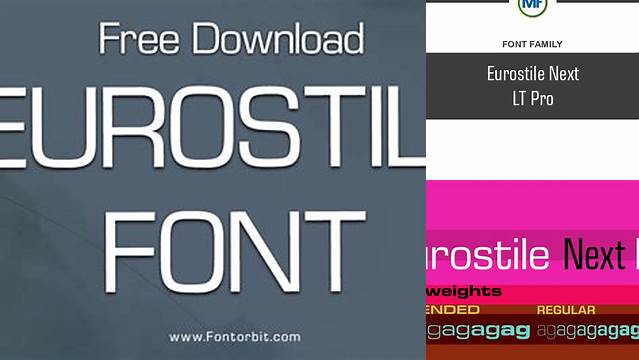
Hey guys, are you on the hunt for a super cool, versatile font that can give your designs a serious edge? Look no further, because we're diving deep into the world of Eurostile Next Paneuropean Condensed Bold Italic Font! This font family is a real gem, perfect for everything from eye-catching headlines to sleek body text. And the best part? We'll be talking about how you can get your hands on a free download!
H2: What Makes Eurostile Next Font So Special?
Okay, so what's the deal with Eurostile Next? Why is it so popular, and why should you care? Well, let's break it down. First off, it's a member of the Eurostile family, which is known for its clean, geometric look. This gives it a modern, professional vibe that's perfect for a wide range of projects. The Paneuropean aspect means it supports a bunch of different European languages, so you're covered if you're working on multilingual projects. Then there's the condensed style, which is super handy when you need to fit a lot of text into a small space – think headlines, subheadings, and even some body text in certain cases. The bold and italic versions give you even more options for emphasizing text and adding visual interest. This is a font that can handle a wide variety of design tasks, from creating striking posters to designing websites that really pop. It's the kind of font that says, "I know what I'm doing" without being overly flashy or distracting. This versatility is the cornerstone of its popularity, making it a favorite among designers and marketers alike. And, let's be honest, who doesn't love a font that looks good in both print and digital formats? Also, it's important to remember that a well-chosen font can significantly impact the way your audience perceives your message. It can convey everything from professionalism and trustworthiness to creativity and innovation. In essence, the right font can make or break your design, and Eurostile Next is often a safe bet.
Let’s get a little more technical, shall we? Eurostile Next is a sans-serif typeface, meaning it doesn't have those little "feet" or serifs at the ends of the letters. This gives it a clean, streamlined appearance. The geometric design of the letters creates a strong visual impact, ensuring that your text is easily readable, even at smaller sizes. The condensed version of the font is perfect for saving space without sacrificing readability. This is especially useful when designing for mobile devices or situations where space is at a premium. The bold and italic styles add extra options for emphasis and visual flair. The bold style is great for headings and subheadings, while the italic style can be used for emphasis or to create a sense of movement. Because it supports a wide range of languages, this font is an excellent choice for international projects. The paneuropean character set ensures that your text will look great, regardless of the language. This font is also super versatile, working well in everything from posters and advertisements to websites and presentations. It's a great choice for creating a cohesive brand identity, allowing you to communicate professionalism and style across all your design projects. And if you need a font that looks equally good in print and digital formats, Eurostile Next is the way to go. Whether you're designing a logo, a website, or a brochure, this font can help you achieve your goals.
H3: Key Features of the Eurostile Next Font
Okay, let's dive into what makes Eurostile Next tick. This font is all about clean lines and a modern aesthetic. The condensed style is perfect for fitting more text into a limited space, which is fantastic for headlines, subheadings, or any situation where you need to be concise. The bold and italic versions offer versatility, allowing you to add emphasis and visual flair to your designs. The geometric shapes and consistent letterforms make it easy to read, which is a crucial component of good design. The Paneuropean character set ensures compatibility with a wide range of languages, making it an excellent choice for international projects. This versatility makes it an excellent choice for a wide variety of design projects, from creating striking posters to designing websites that really pop. It looks great in both print and digital formats, so you can use it in all your projects, regardless of the medium. It has a professional and sophisticated look, making it a great option for brands that want to convey trust and expertise. It’s a workhorse font, ready for any design challenge.
In a nutshell, Eurostile Next is a versatile and stylish font family that can elevate your designs. Its condensed style, bold and italic variations, and support for multiple languages make it a top choice for designers and marketers. It's a great font to use when you want a modern, clean look that is both readable and eye-catching. This is a font that can adapt to any situation, and it is a must-have for any designer's font library. It is a font that can handle a wide variety of design tasks, from creating striking posters to designing websites that really pop. It's the kind of font that says, "I know what I'm doing" without being overly flashy or distracting.
H2: Understanding the Different Styles: Condensed, Bold, and Italic
Let's get into the nitty-gritty of those different Eurostile Next styles: Condensed, Bold, and Italic. Each one brings something unique to the table, allowing you to create a dynamic and engaging design. The condensed version is all about saving space. Think of it as the font's way of squeezing into a tight spot while still looking good. This is perfect for headlines, subheadings, and any situation where you need to fit a lot of text into a limited area. It's also great for mobile interfaces and other designs where screen real estate is precious. The bold style is your go-to for making text pop. It adds emphasis and visual weight, making important words and phrases stand out. Use it for headings, calls to action, or anywhere you want to draw the reader's eye. The italic style is all about elegance and adding a touch of sophistication. It creates a sense of movement and can be used to emphasize specific words or phrases. It's also a good choice for quotes and other text that needs to stand apart from the main body. The interplay of these styles is what makes Eurostile Next so versatile. You can use them individually or combine them to create a unique look. A bold, italicized heading, for example, can instantly grab the reader's attention. A condensed subheading can provide clarity and structure. Knowing how to utilize each style effectively will help you create designs that are both visually appealing and easy to understand. With a little practice, you'll be creating layouts that are both beautiful and functional.
H3: When to Use the Condensed Style
The condensed style is your best friend when space is at a premium. Whether you're designing a website, a poster, or a mobile app, it's a great choice when you need to cram a lot of text into a limited area. For headlines, it can make a bold statement without taking up too much space. Think of it as a way to make a headline stand out without making it overpower the rest of the design. In subheadings, it provides a clean, organized structure that makes your content easy to scan. It can also be used effectively in body text, especially in situations where you need to fit more words on a line. It also works great for tables and charts where space is critical. You can use it to clearly label and organize your data. If you’re designing a mobile app, the condensed style is especially helpful because you are often working with a small screen. The Eurostile Next Condensed style is a fantastic way to make the most of the space available to you. Also, it's not just about cramming text; it's also about readability. The condensed style of Eurostile Next maintains clarity, ensuring your text is easy to read, even when it's compact. This is especially important for users who may be viewing your design on a small screen or a mobile device. When used wisely, the condensed style can significantly enhance the visual appeal and functionality of your design. It's a tool that, when used correctly, allows you to get the most out of every design.
H3: The Power of Bold and Italic in Design
Let’s talk about how to use bold and italic fonts to really make your designs shine! The bold style of Eurostile Next is your secret weapon for making important text stand out. Use it for headings, subheadings, and any text that you want to draw the reader's eye. It creates visual weight and emphasis, making your message clear and impactful. Make sure not to overuse bold styles, as it can make your design look cluttered and confusing. Use it sparingly to highlight key information or create a focal point. The italic style is all about elegance and adding a touch of sophistication. It’s perfect for quotes, captions, and other text you want to set apart from the main body. It can also be used to create a sense of movement or emphasize a particular word or phrase. Again, use it strategically to avoid overwhelming your design. Pairing bold and italic styles together can create a dynamic and visually engaging effect. Using a bold italic font for a heading or subheading can capture your reader's attention and give your text extra impact. You can also use italic for subheadings to further organize your content in a visually appealing way. By using bold and italic styles effectively, you can create designs that are both visually appealing and easy to understand. It helps your readers navigate your content and grasp the key takeaways. This approach is not about fancy graphics or complicated layouts, but about strategically using these font styles to create designs that inform and engage your audience.